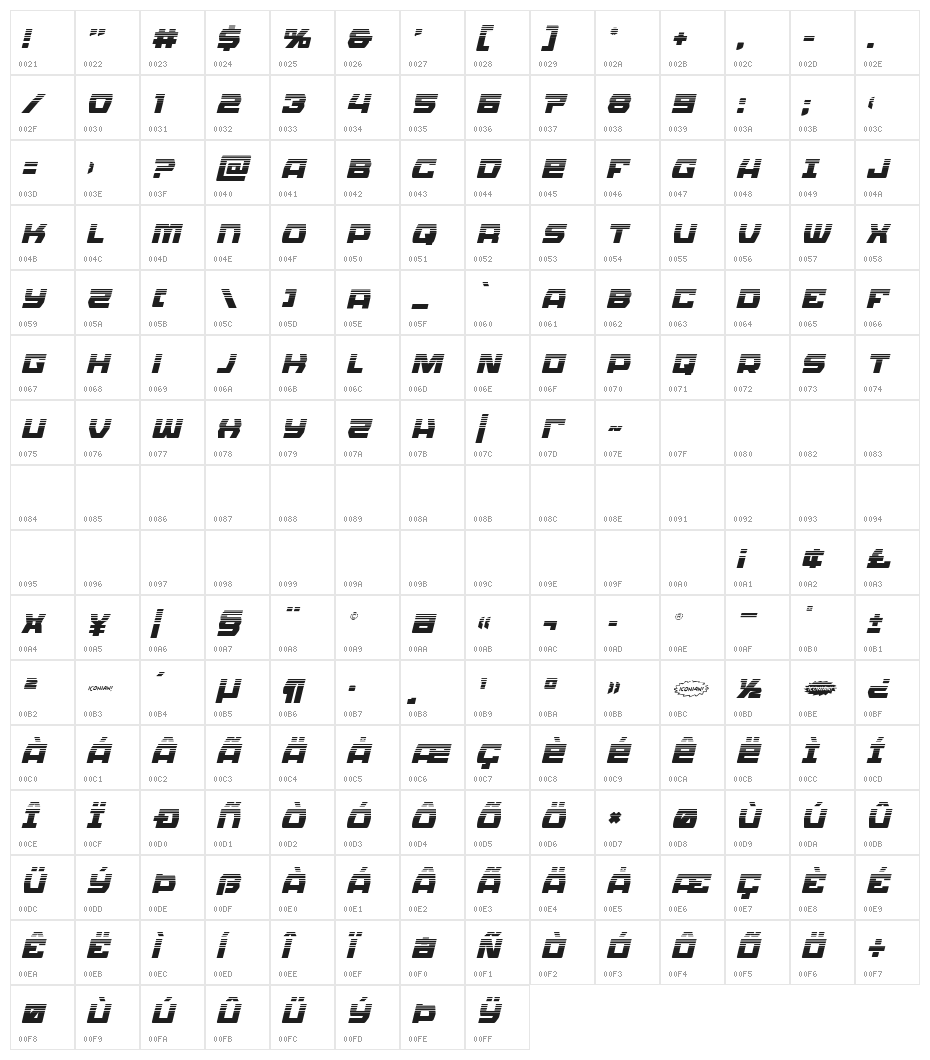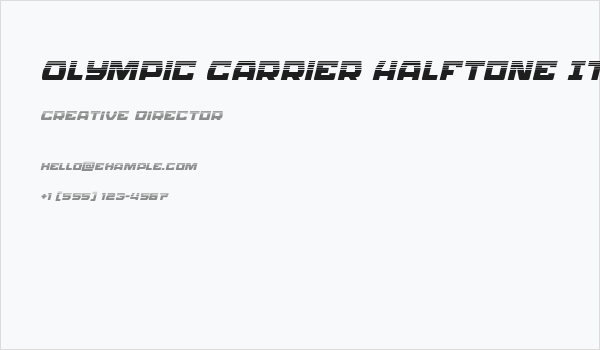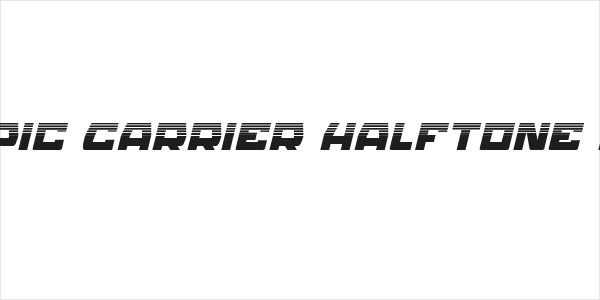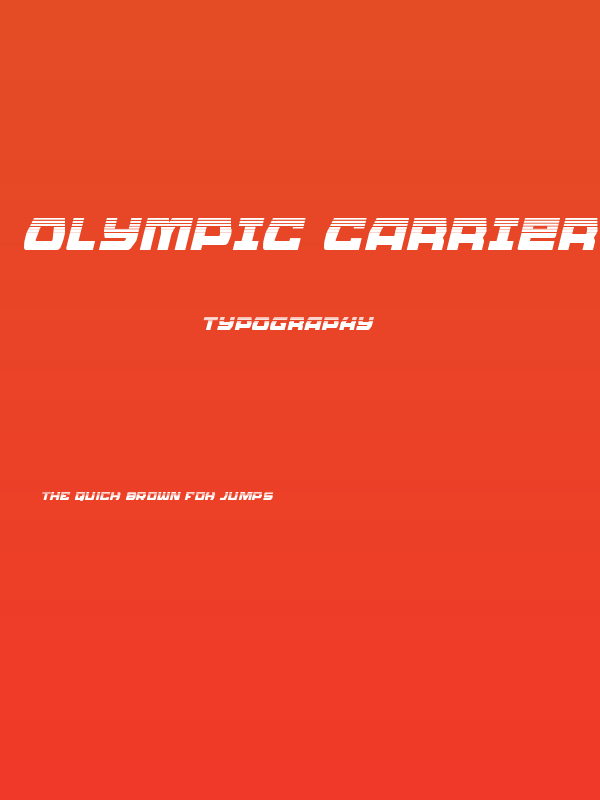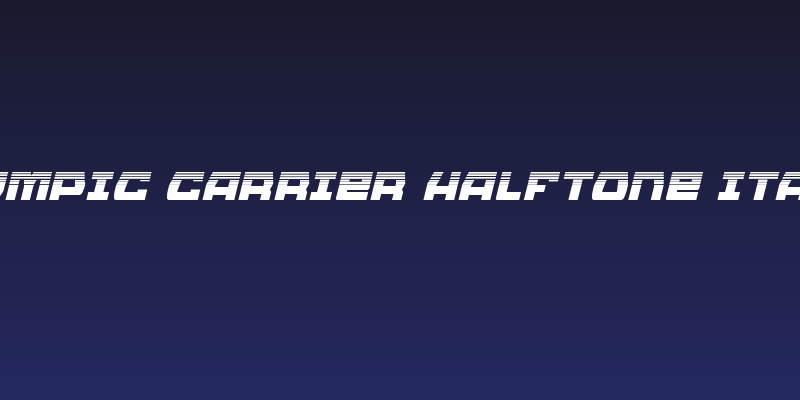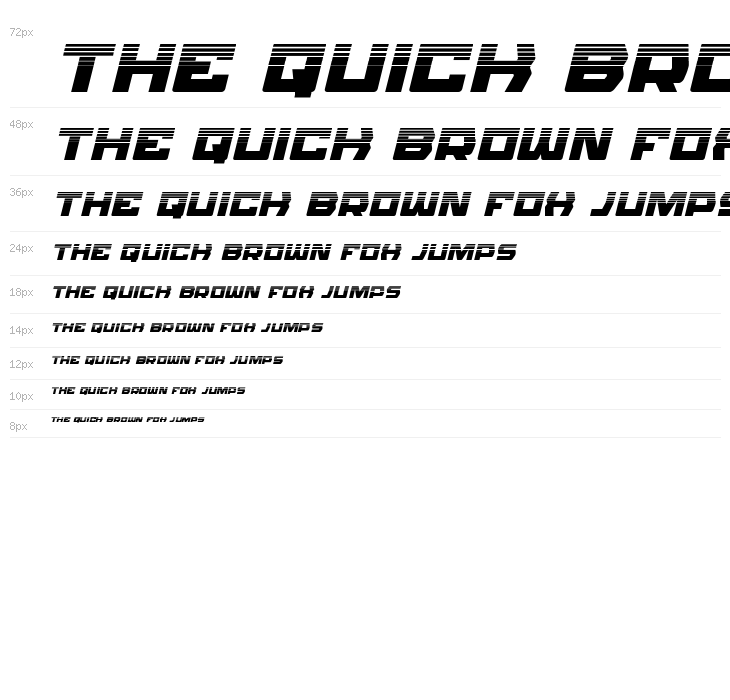
Olympic Carrier Halftone Italic Font
Olympic Carrier Halftone Italic Description
This font features a bold, italicized style with a distinct halftone effect that gives it a dynamic and futuristic appearance. The uppercase and lowercase letters are designed with a strong geometric structure, characterized by sharp angles and a sense of movement. The halftone lines add a unique texture, creating a sense of depth and speed. The numerals and special characters maintain this cohesive design, ensuring versatility across various applications. The overall aesthetic is modern and eye-catching, making it suitable for projects that require a bold statement.